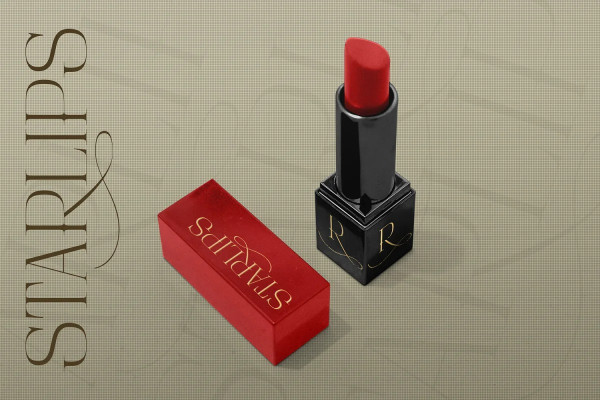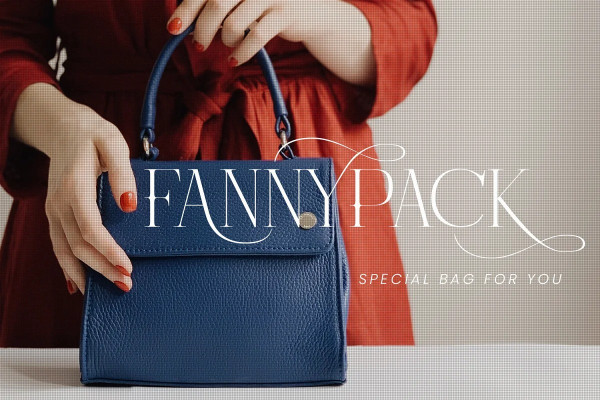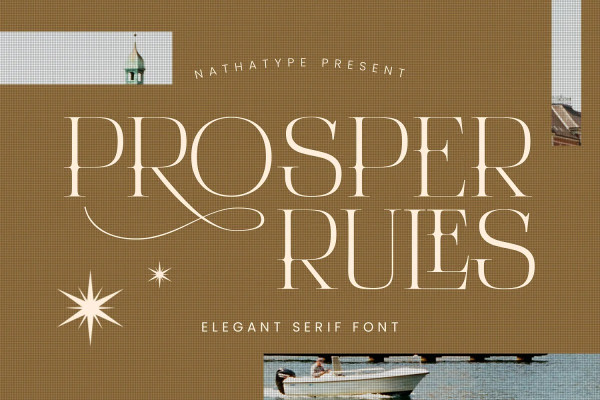
Prosper Rules Font
Prosper Rules Font is a distinguished serif font that exudes sophistication and refinement. With its timeless serifs and carefully crafted extended lines, this typeface brings an air of elegance to your designs.
The defining feature of Prosper Rules lies in its extended lines, gracefully integrated into select letters. These extended lines add a touch of distinction and visual interest, elevating the font’s overall composition. Each letter is meticulously designed to strike the perfect balance between tradition and modernity. Inspired by classic typographic elements, Prosper Rules captures the essence of timeless beauty. The serifs, with their subtle flares, provide a sense of stability and sophistication. The extended lines offer a contemporary twist, infusing the font with a touch of creativity and uniqueness. The uppercase letterforms of Prosper Rules are meticulously crafted, showcasing clean lines and well-balanced proportions. The extended lines, thoughtfully placed in specific letters, create a sense of flow and purpose.